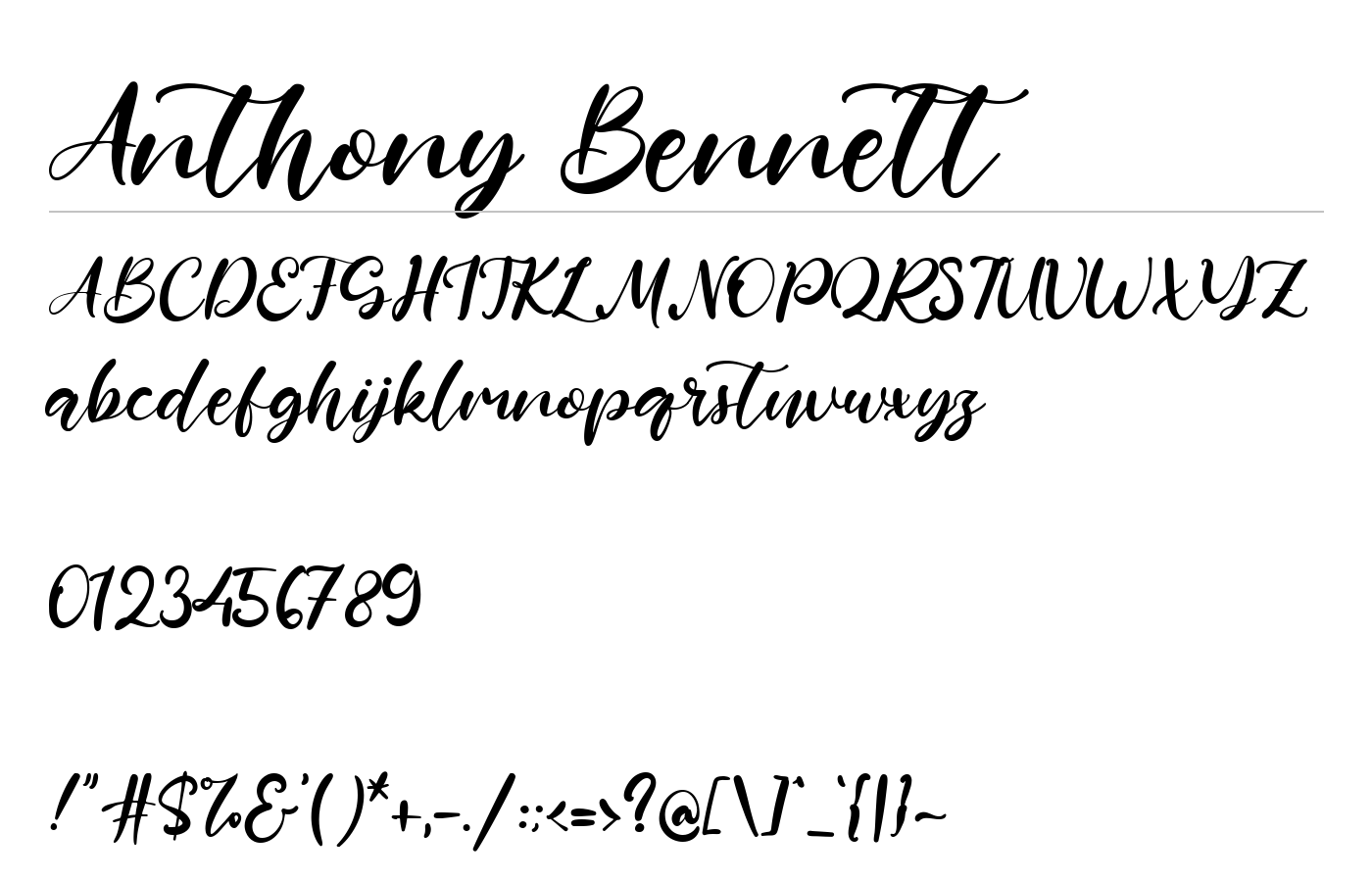
Anthony Bennett is an elegant script font with smooth, flowing strokes that balance bold weight and stylish flourishes, giving it a refined yet approachable feel. Its natural, hand-lettered appearance makes it perfect for sophisticated branding, invitations, and creative projects that seek a touch of warmth and personality. This font stands out in designs that need a graceful and modern handwritten look.
Anthony Bennett Font
About Anthony Bennett Font
| Font family | Anthony Bennett Font |